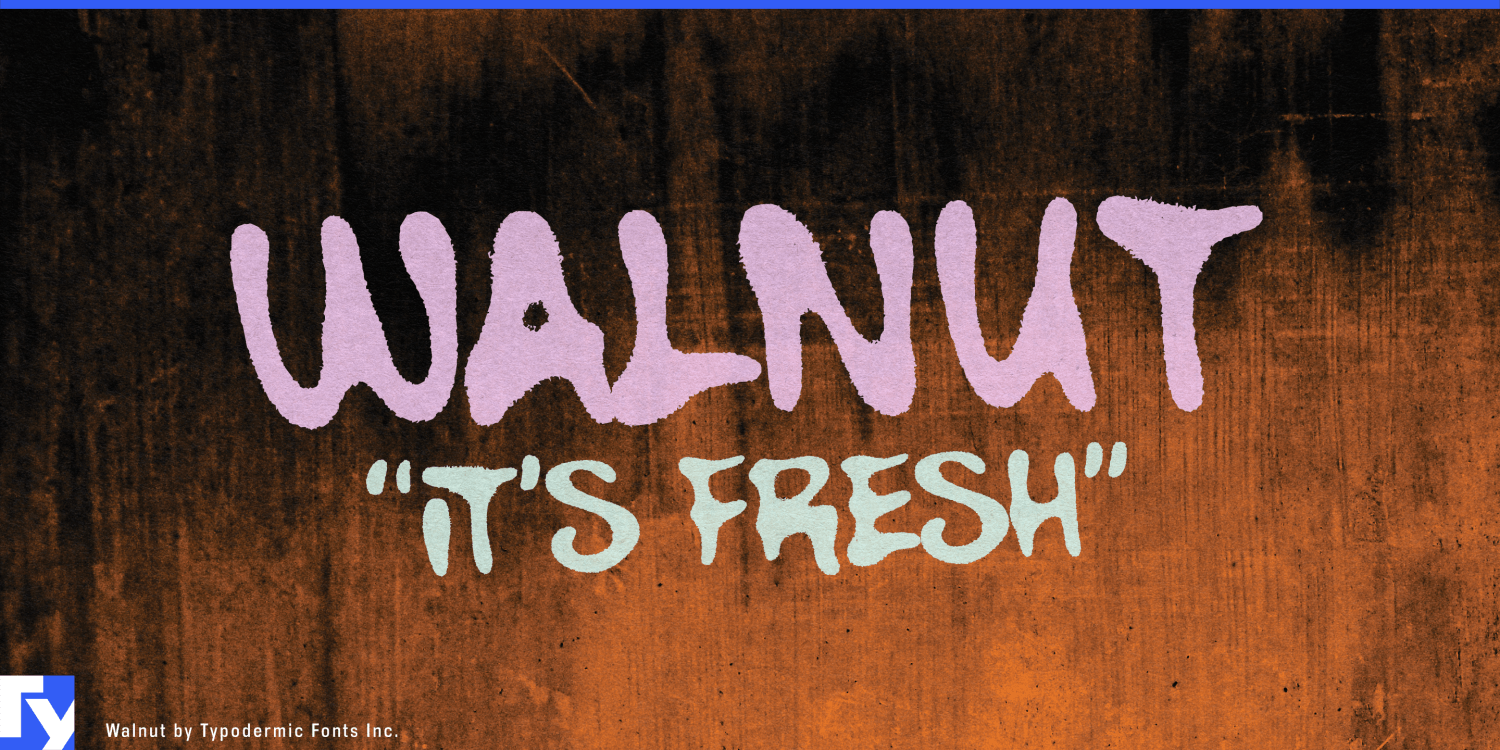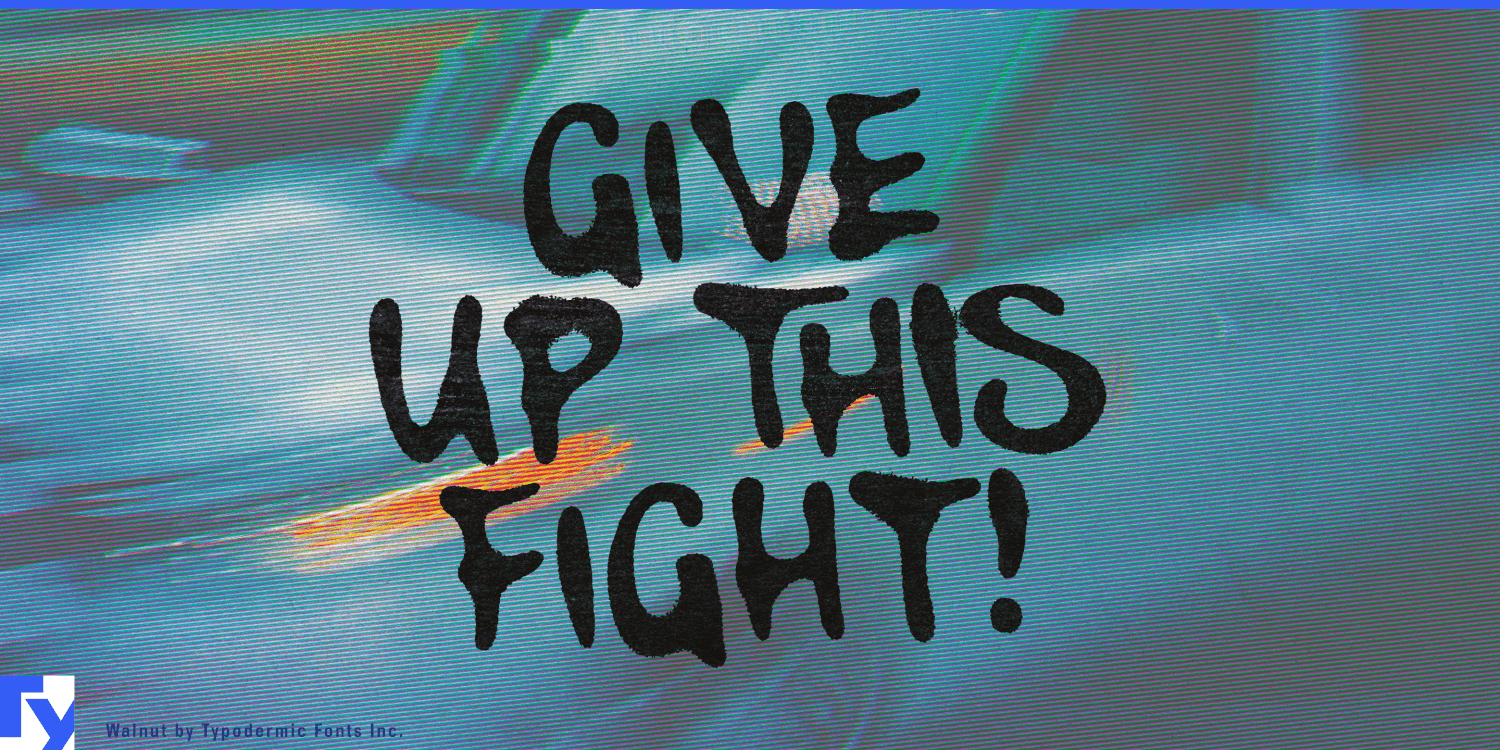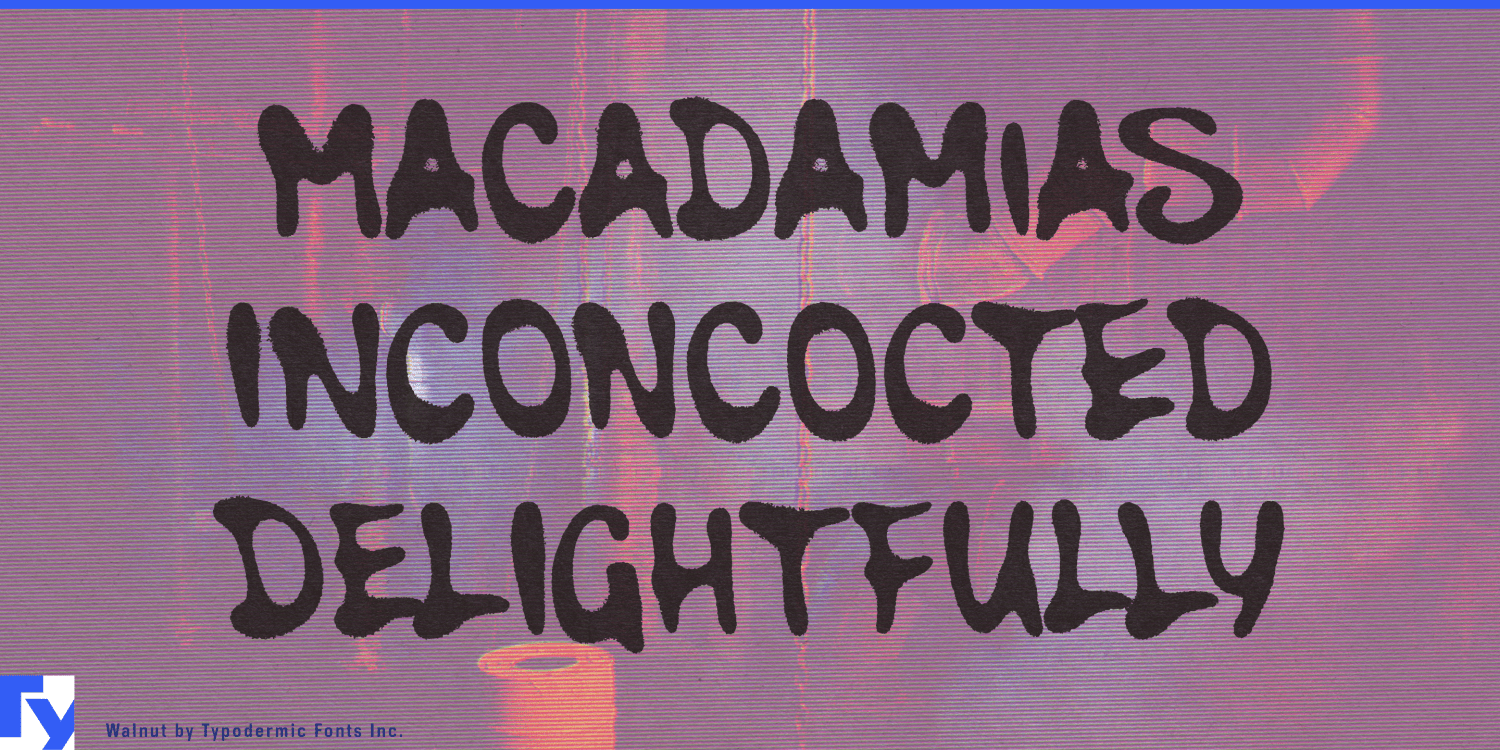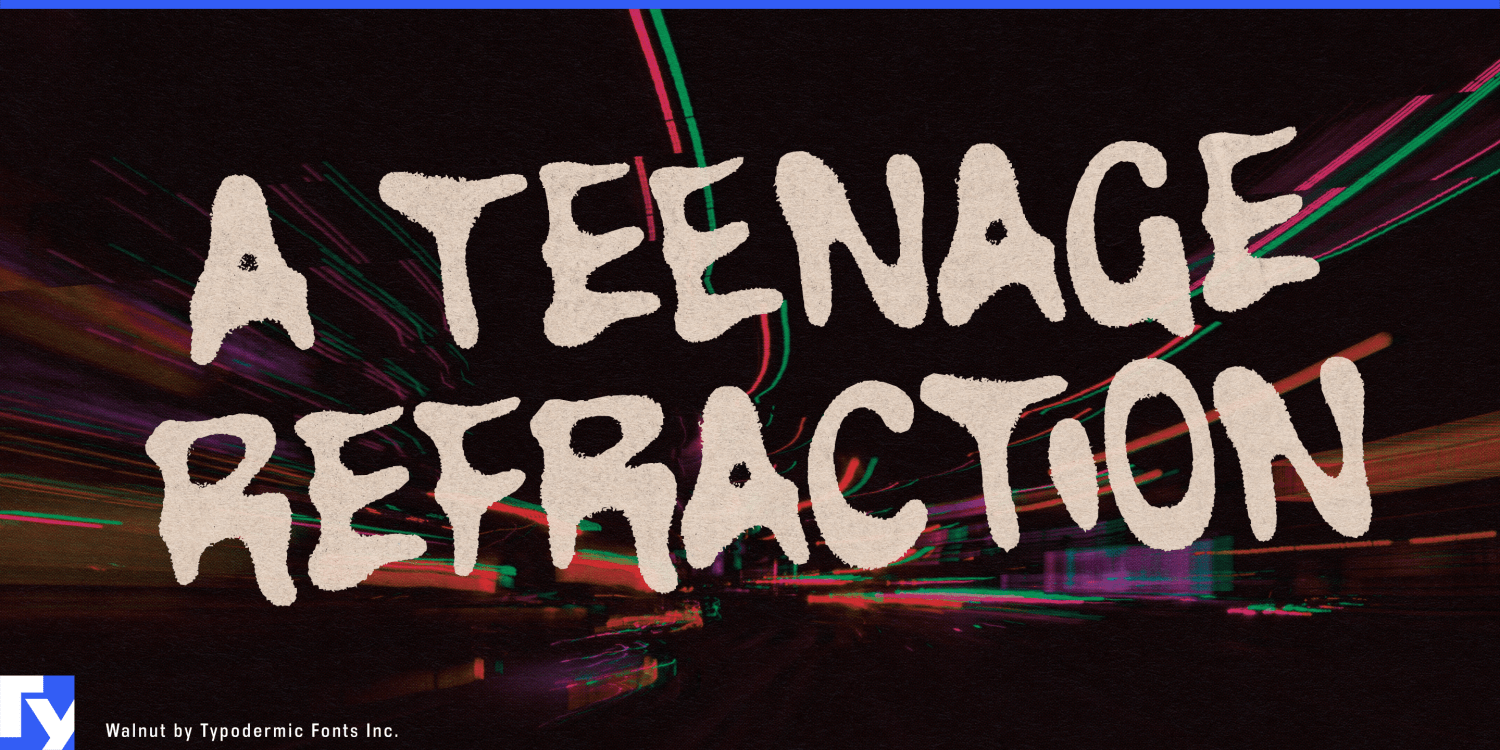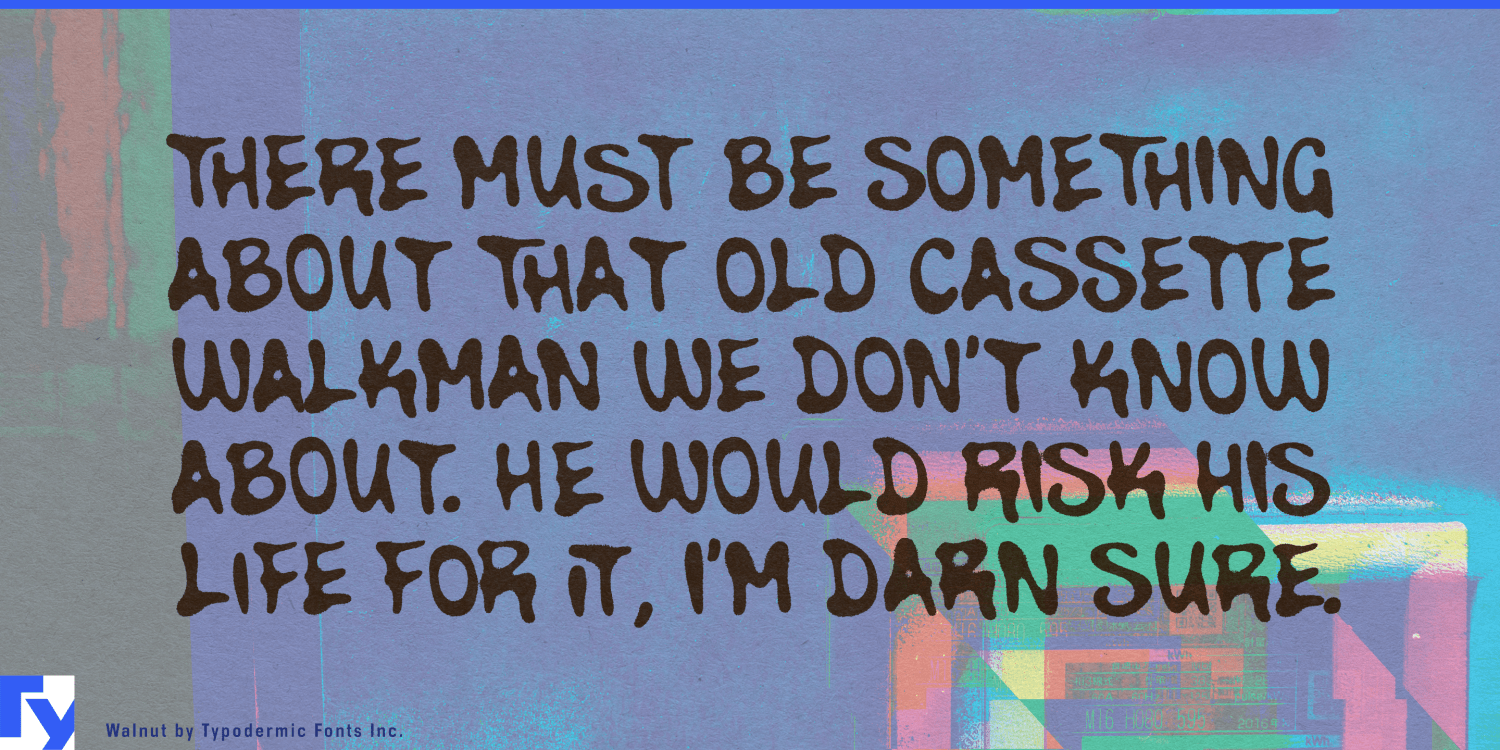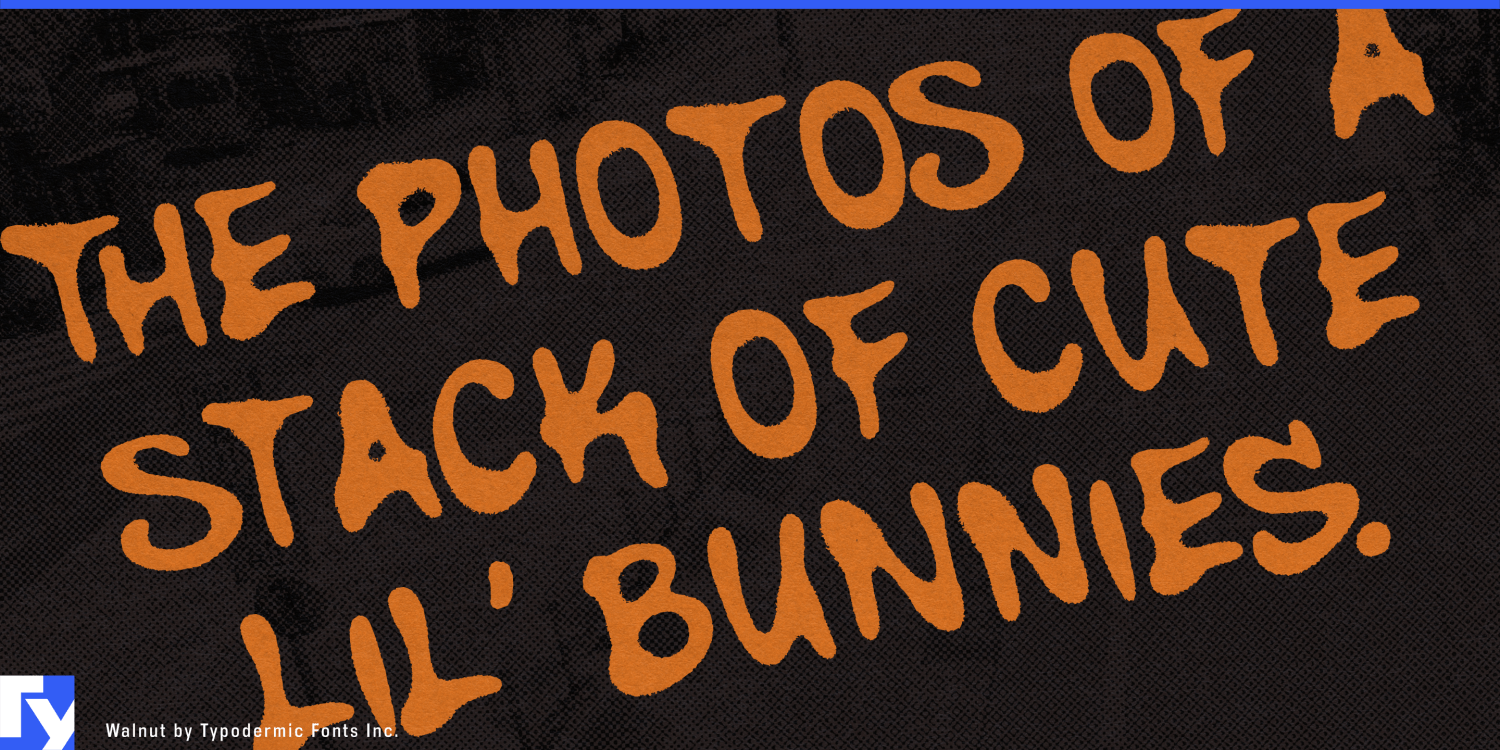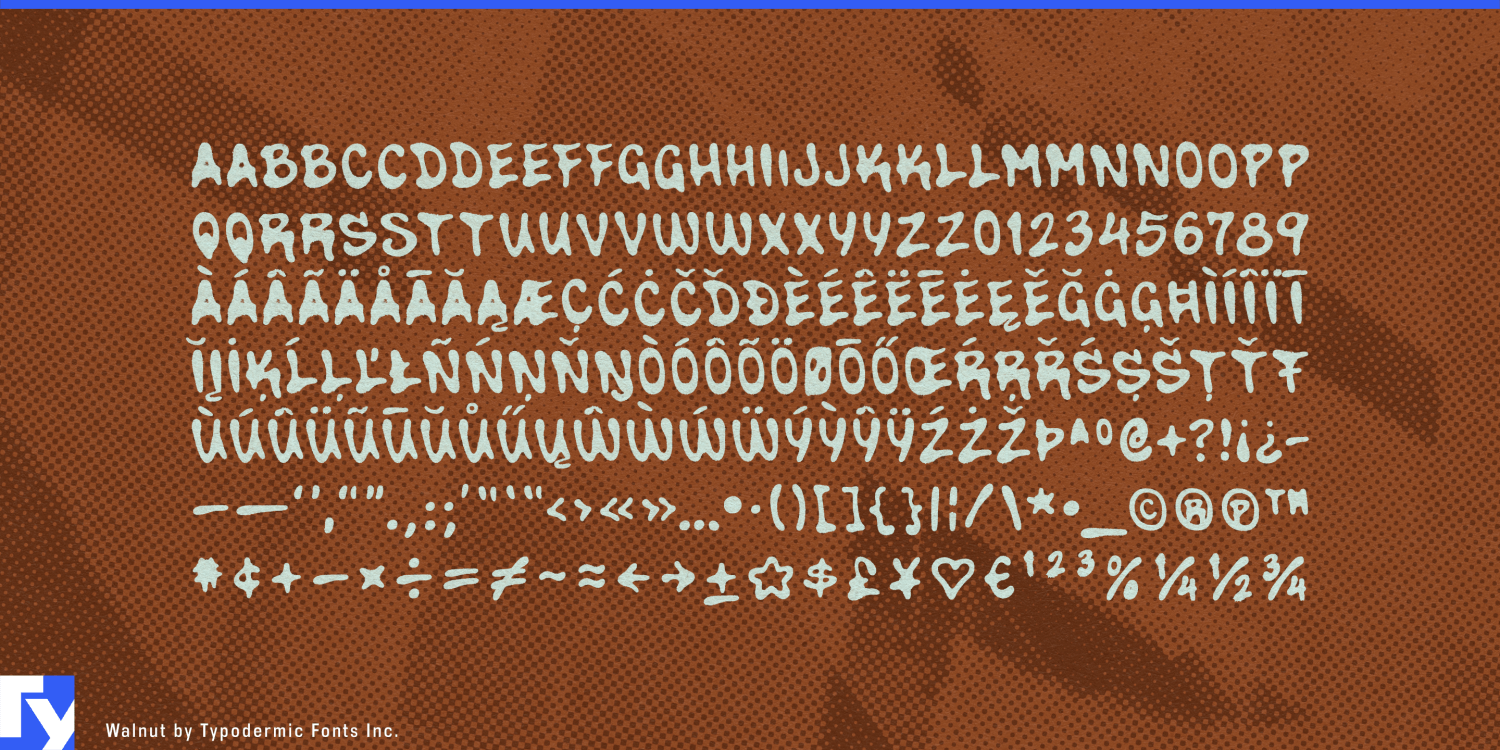
Walnut
Font Family by Typodermic
Spray-painted lettering often comes with a built-in attitude problem. It can look aggressive, territorial, or deliberately abrasive even when the project only needs something spontaneous and hand-applied. Walnut keeps the immediacy of a quick spray-painted tag but softens the result with broad forms, blunt edges, and an irregular rhythm that feels playful rather than hostile.
The letters are based on fast, informal tagging rather than elaborate graffiti pieces. They are chunky, slightly awkward, and visibly handmade, but coherent enough to carry more than a single word. Alternate letter combinations introduce subtle variation so repeated characters do not immediately reveal the mechanical repetition of a font.
Colorful snack and confectionery packaging is an especially natural fit. Sour gummies, chewy candy, flavored popcorn, spicy chips, novelty cookies, and limited-edition snack ranges can use Walnut for oversized flavor names and front-of-pack graphics while a cleaner companion face handles ingredients and product information. Its softness keeps the package energetic without relying on spikes, splatters, or faux-dangerous lettering.
Frozen treats and convenience-store drinks can extend the same approach across ice-pop wrappers, slush cups, sparkling beverages, freezer-door promotions, vending-machine graphics, and seasonal flavor campaigns. Strong color schemes amplify Walnut’s chunky forms while the loose spray-painted character prevents the result from feeling too polished.
The street connection also works around actual equipment. Skate helmets, BMX components, scooter decks, protective gear, urban cycling accessories, and action-sports footwear can use Walnut for model names, decals, package cards, event graphics, and limited-edition launches. Bouldering gyms can apply the same informal voice to route zones, competition titles, youth programs, apparel, membership campaigns, and wall graphics while clearer typography handles grades, rules, and safety information.
Street basketball and other urban court events can use Walnut for 3x3 tournament names, player introductions, court-side graphics, sponsor walls, shirts, and temporary installations. Sneaker and sportswear capsule launches can use it as a rough campaign layer over polished product photography for colorway names, launch dates, box sleeves, window graphics, and pop-up-store signage.
Games and entertainment can take its quick-tag origins more literally. Parkour games, street-sports titles, rhythm games, crew-based competition, and stylized urban settings can use Walnut for crew names, mission headings, neighborhood markers, score splashes, and environmental graphics.
Walnut is spray-painted lettering without the scowl. Its broad, soft forms bring spontaneity, mess, and physical presence to colorful packaging, action-sports equipment, climbing gyms, urban events, sneaker launches, and youth-facing campaigns without turning every project into an act of rebellion.